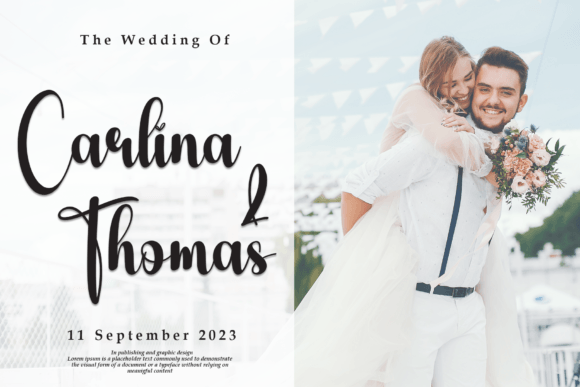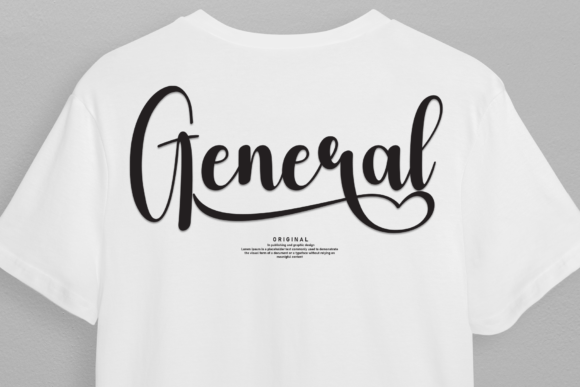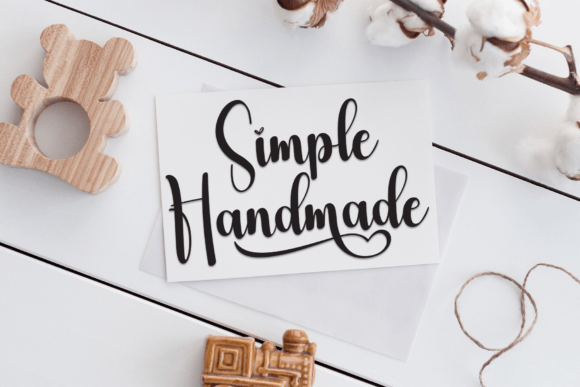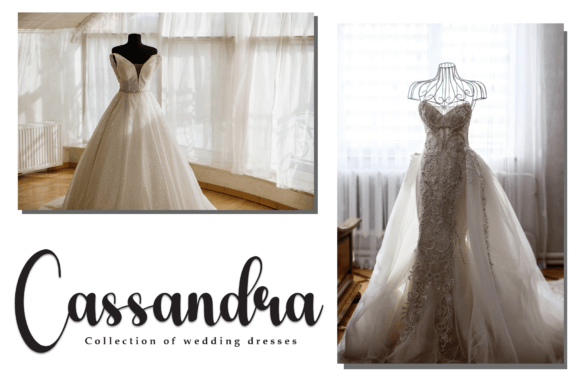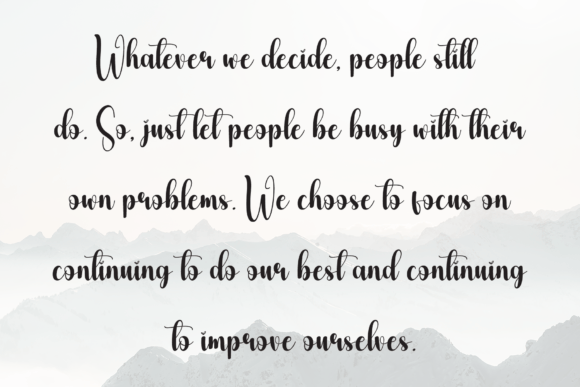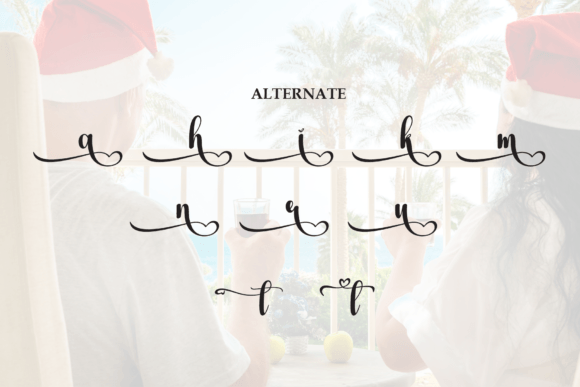
Christmas Vacations Font: The Perfect Addition to Your Holiday Designs
Are you looking for a font that captures the essence of the holiday season? Look no further than Christmas Vacations Font! This sweet and friendly handwritten font is perfect for designers and crafters who want to add a touch of warmth and personality to their holiday designs. In this article, we’ll take a closer look at Christmas Vacations Font and explore its features, benefits, and uses.
What is Christmas Vacations Font?
Christmas Vacations Font is a beautiful, handwritten font that is designed to evoke the feeling of a winter wonderland. Its natural and unique style makes it incredibly fitting to a large pool of designs, from holiday cards and invitations to festive posters and social media graphics. The font is perfect for designers and crafters who want to add a personal touch to their work and create something truly special.
Features of Christmas Vacations Font
So, what makes Christmas Vacations Font so special? Here are just a few of its key features:
- Handwritten style: Christmas Vacations Font has a beautiful, handwritten style that gives it a personal and friendly feel.
- Natural and unique: The font’s natural and unique style makes it perfect for a wide range of designs, from traditional to modern.
- Easy to read: Despite its whimsical style, Christmas Vacations Font is easy to read, making it perfect for use in body text or headlines.
- Highly versatile: The font can be used for a wide range of projects, from holiday cards and invitations to posters, social media graphics, and more.
Benefits of Using Christmas Vacations Font
So, why should you choose Christmas Vacations Font for your holiday designs? Here are just a few benefits of using this amazing font:
- Adds a personal touch: Christmas Vacations Font adds a personal touch to your designs, making them feel more friendly and approachable.
- Perfect for holiday designs: The font is specifically designed for holiday designs, making it perfect for Christmas cards, invitations, and more.
- High-quality: The font is high-quality and professionally designed, ensuring that your designs look their best.
Uses for Christmas Vacations Font
So, what can you use Christmas Vacations Font for? The possibilities are endless! Here are just a few ideas to get you started:
- Holiday cards and invitations: Use Christmas Vacations Font to create beautiful, personalized holiday cards and invitations.
- Festive posters and graphics: The font is perfect for creating festive posters and social media graphics that capture the spirit of the holiday season.
- Crafting projects: Christmas Vacations Font is perfect for crafters who want to add a personal touch to their projects, from scrapbooking to DIY gifts.
- Web design: Use the font to add a touch of holiday cheer to your website or blog.
Tips and Tricks for Using Christmas Vacations Font
Here are a few tips and tricks for getting the most out of Christmas Vacations Font:
- Experiment with different sizes and colors: Don’t be afraid to try out different sizes and colors of the font to find the perfect look for your design.
- Pair with other fonts: Christmas Vacations Font pairs well with other fonts, so don’t be afraid to experiment with different combinations.
- Use it sparingly: While Christmas Vacations Font is perfect for holiday designs, it’s best to use it sparingly to avoid overwhelming your design.
By following these tips and tricks, you can create beautiful, professional-looking designs that showcase the unique charm of Christmas Vacations Font.